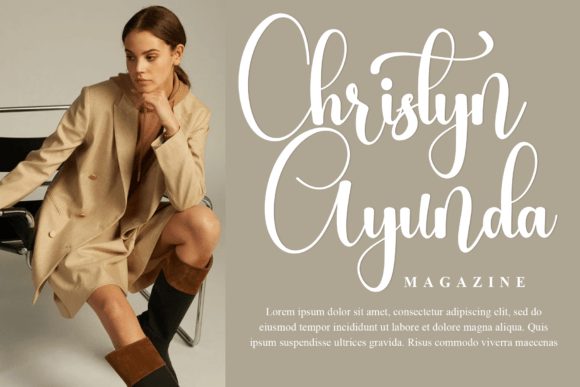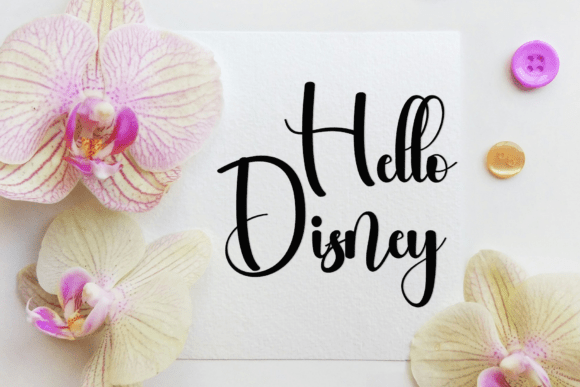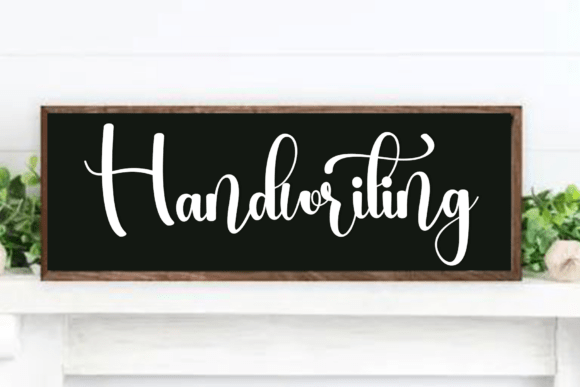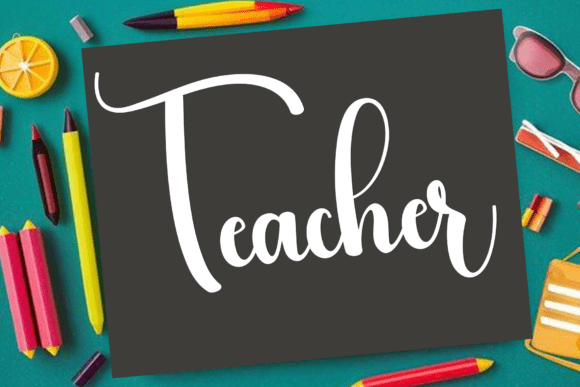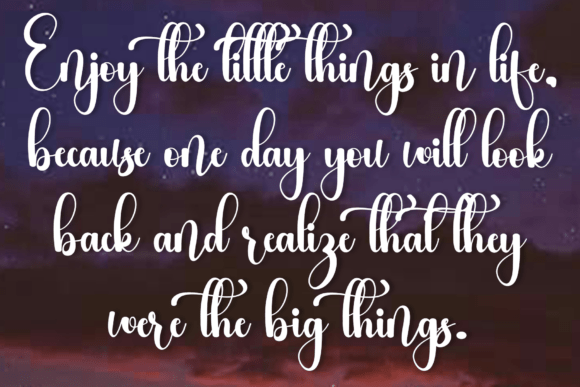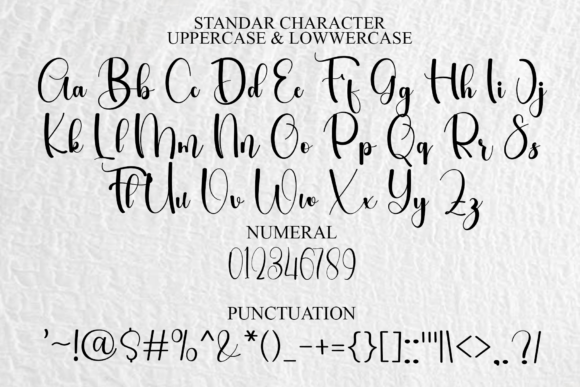
The Perfect Handwritten Touch: A Deep Dive into Creative Writing Font
I’ll never forget the time I was working on a wedding invitation project for a dear friend. The design was beautiful, but something was missing – a font that could capture the elegance and romance of the occasion. That’s when I stumbled upon Creative Writing, a stylish and incredibly elegant script font. It was love at first sight! 💕
Creative Writing is a stunning script font that can elevate any design project, from wedding invitations and thank you cards to quotes, greeting cards, logos, and business cards. Its handwritten touch adds a touch of warmth and personality to any design, making it perfect for crafters, designers, and creative hobbyists.
• ✨ Elegant and sophisticated design that’s perfect for high-end projects
• ✅ Highly legible, even at small font sizes
• 💫 Beautifully crafted to mimic handwritten script
• 🎨 Versatile and can be used for a variety of design projects
While Creative Writing is an amazing font, there are a few things to keep in mind: 🤔
• ⚠️ Some letters may not connect seamlessly, which can affect the overall flow of the text
• ⚠️ Not ideal for body text or long paragraphs, as it can be tiring to read
The Story Behind Creative Writing
Creative Writing was designed by a team of talented typographers who wanted to create a font that would capture the essence of handwritten script. Inspired by the beauty of handwritten letters and the elegance of calligraphy, they crafted a font that’s both sophisticated and approachable.
Font Name Creative Writing Font
Author PiPi Creative
Q: What is Creative Writing font?
A: Creative Writing is a stylish and elegant script font that’s perfect for designs that need a handwritten touch.
Q: Is Creative Writing suitable for body text?
A: While Creative Writing is a beautiful font, it’s not ideal for body text or long paragraphs. It’s best used for headings, titles, and short paragraphs.